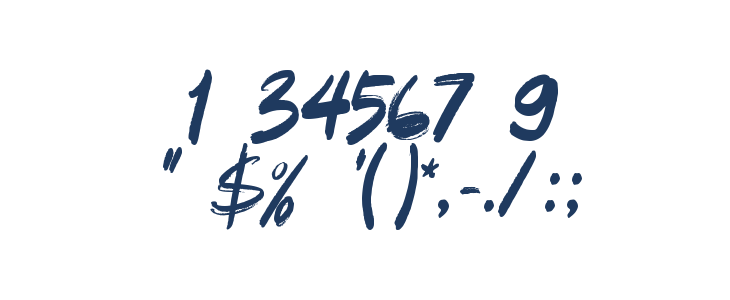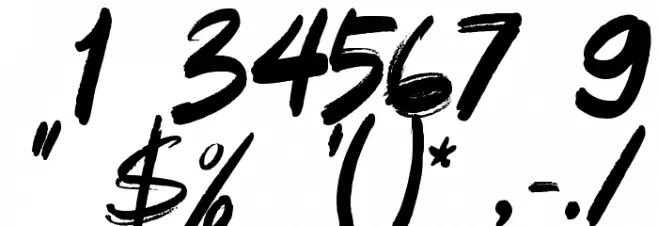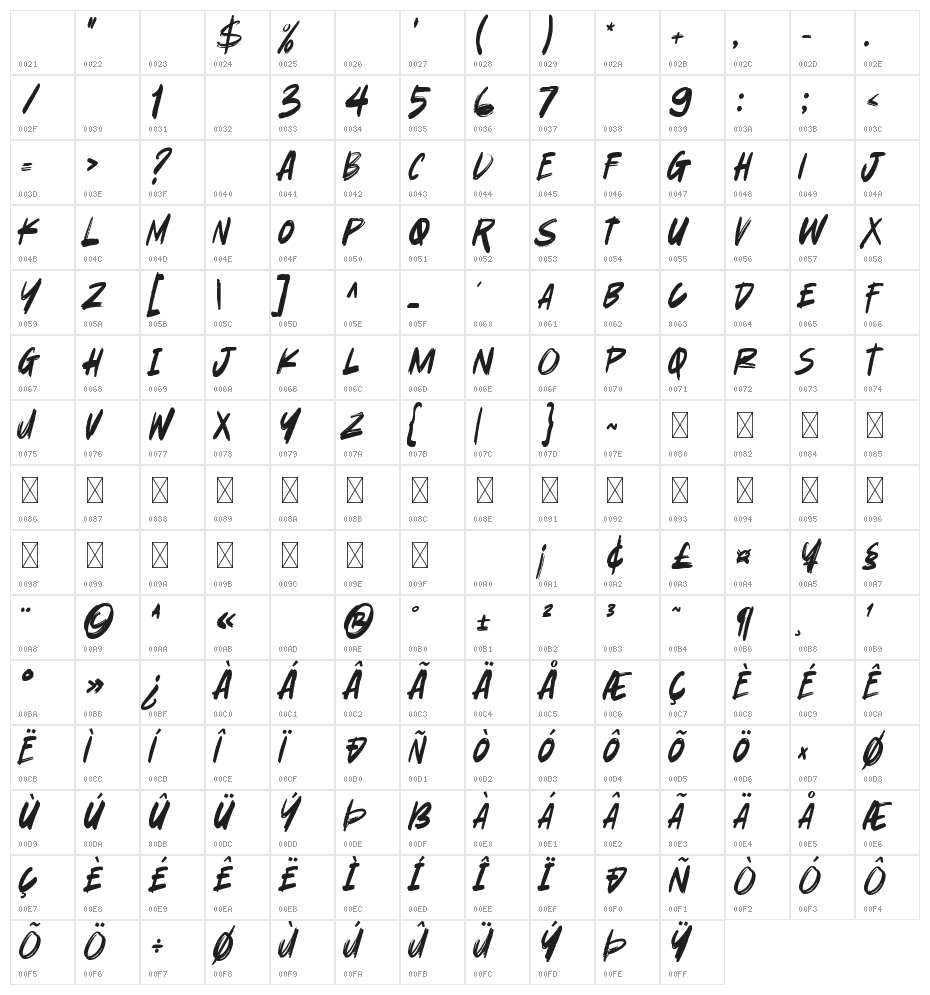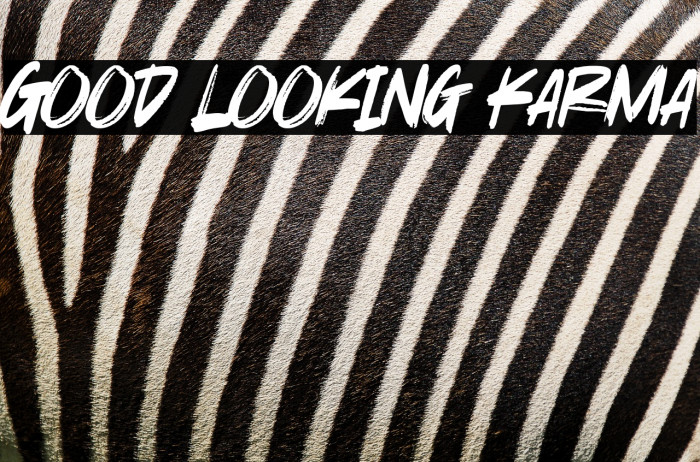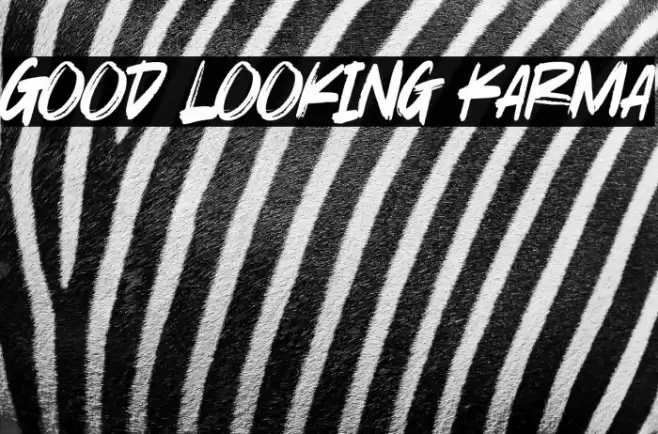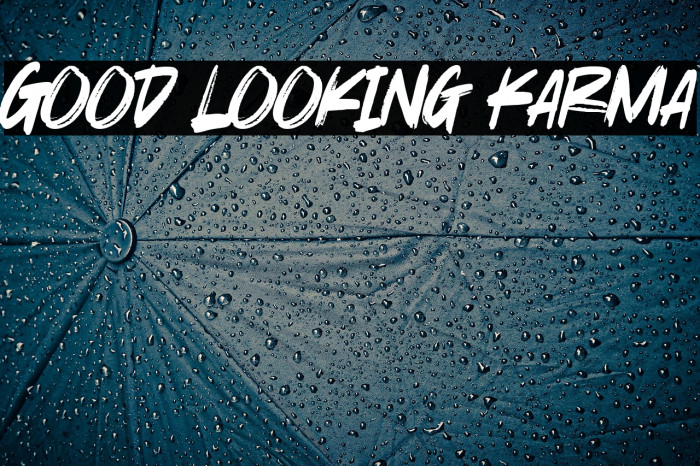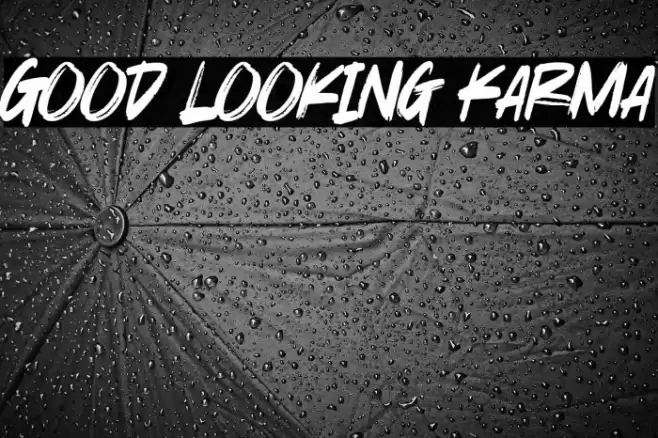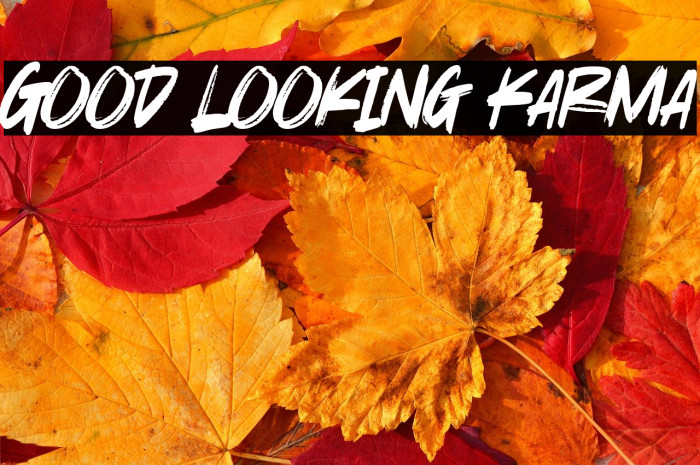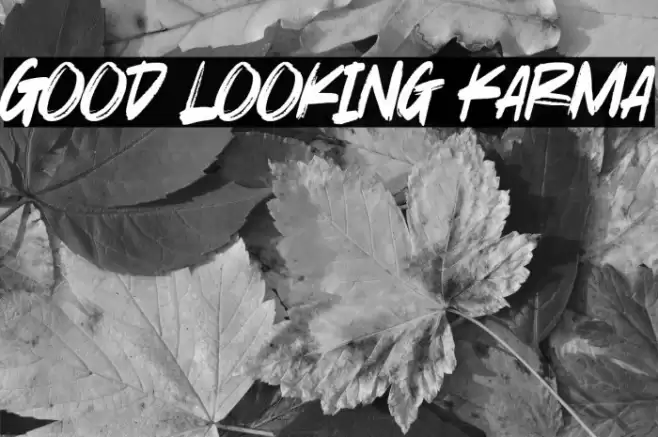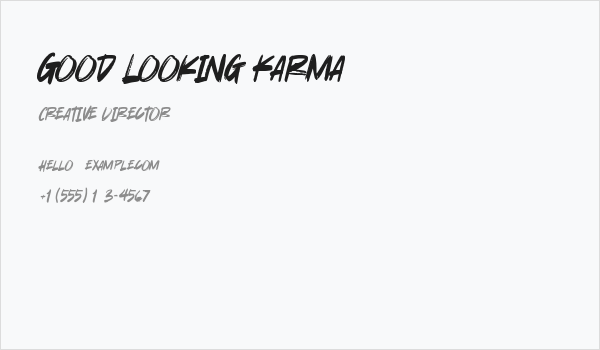
Good Looking Karma Font
Good Looking Karma Description
This font exudes a bold and energetic style, characterized by its brush-like strokes and dynamic movement. The letters are crafted with a sense of urgency and flair, giving each character a unique, hand-painted appearance. The uppercase and lowercase letters maintain a consistent style, with varying stroke widths that add to the font's expressive nature. Numbers and special characters follow the same aesthetic, ensuring a cohesive look across all elements. The overall design is both artistic and impactful, making it suitable for projects that require a strong visual presence.